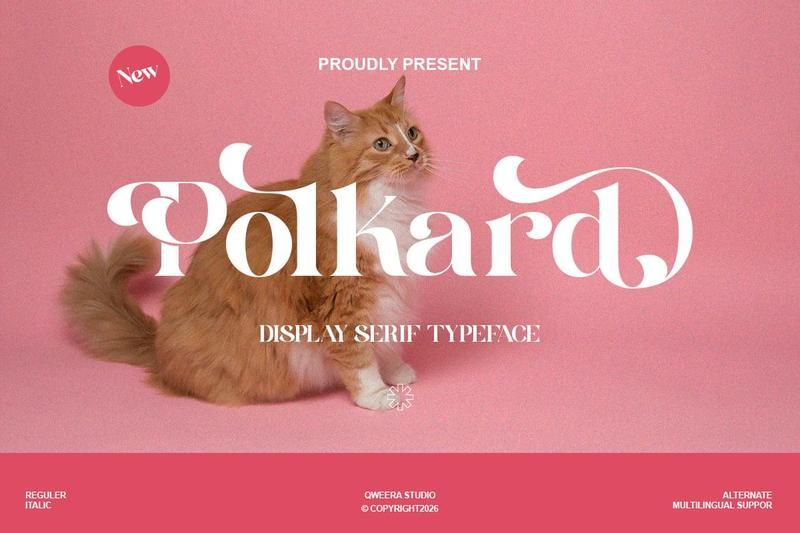
**Polkrad** is a playful display serif typeface designed to bring cute charm, bold personality, and stylish creativity into modern design projects. Featuring decorative letterforms, expressive alternates, and fun ligatures, this font creates a friendly typographic presence with strong visual appeal.
Perfect for pet branding, kids products, toy packaging, birthday invitations, boutique logos, product labels, stickers, social media graphics, creative merchandise, and cheerful lifestyle branding.
Polkrad blends playful display character with polished serif styling, making it an excellent choice for designers seeking a fun, memorable, and stylish font for bright creative projects.
– Uppercase & lowercase
– Alternates & ligatures
– Multilingual support
– Professional kerning
– Regular & Italic